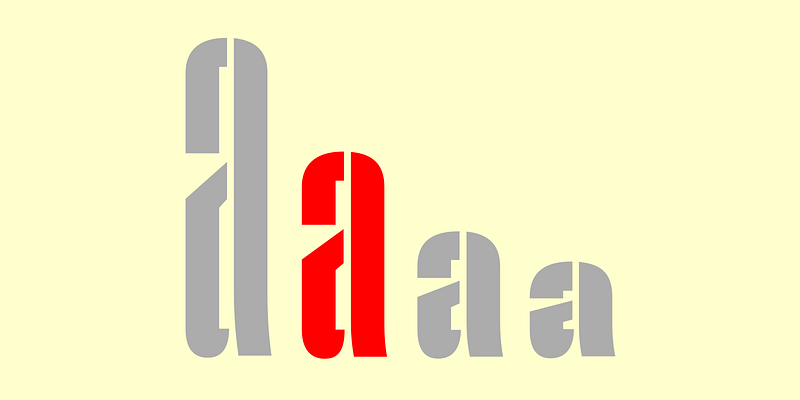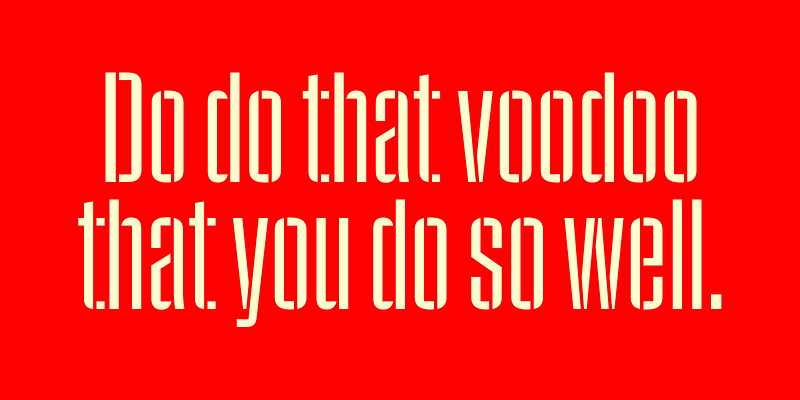
Pressio Stencil brings Pressio’s square counters and superelliptical curves to the stencil genre. The result is Mid-century Modern with a touch of packing crate. Like its solid sister, it includes a set of stylistic alternates to round off some of the unexpectedly sharp corners of letters like S, s, and a.